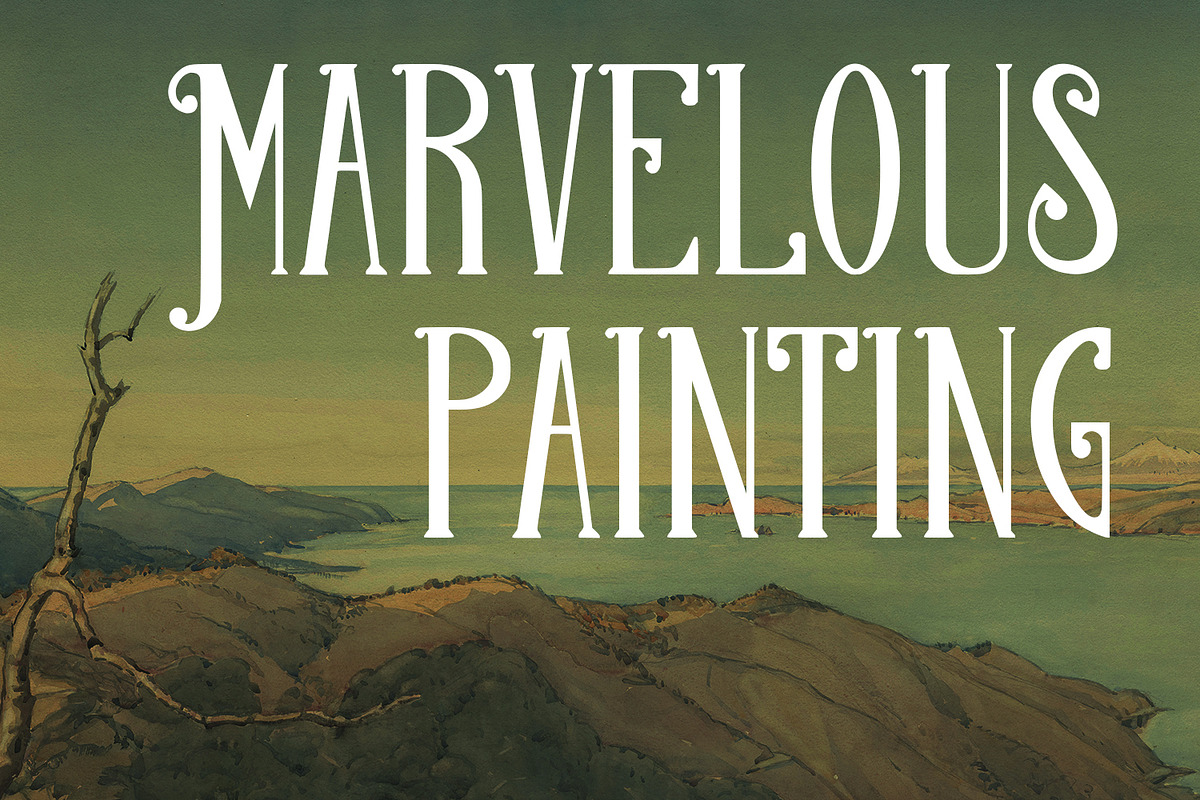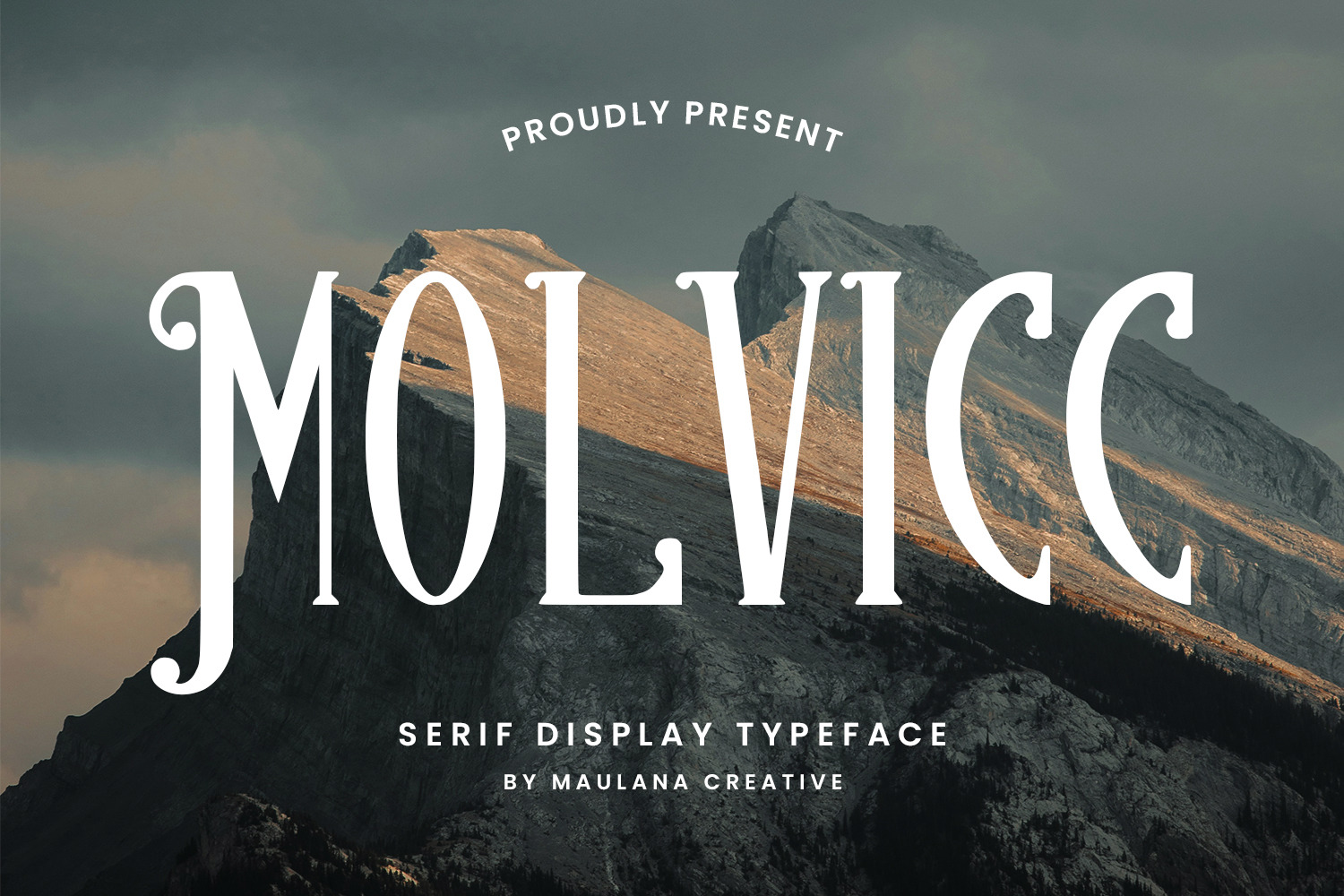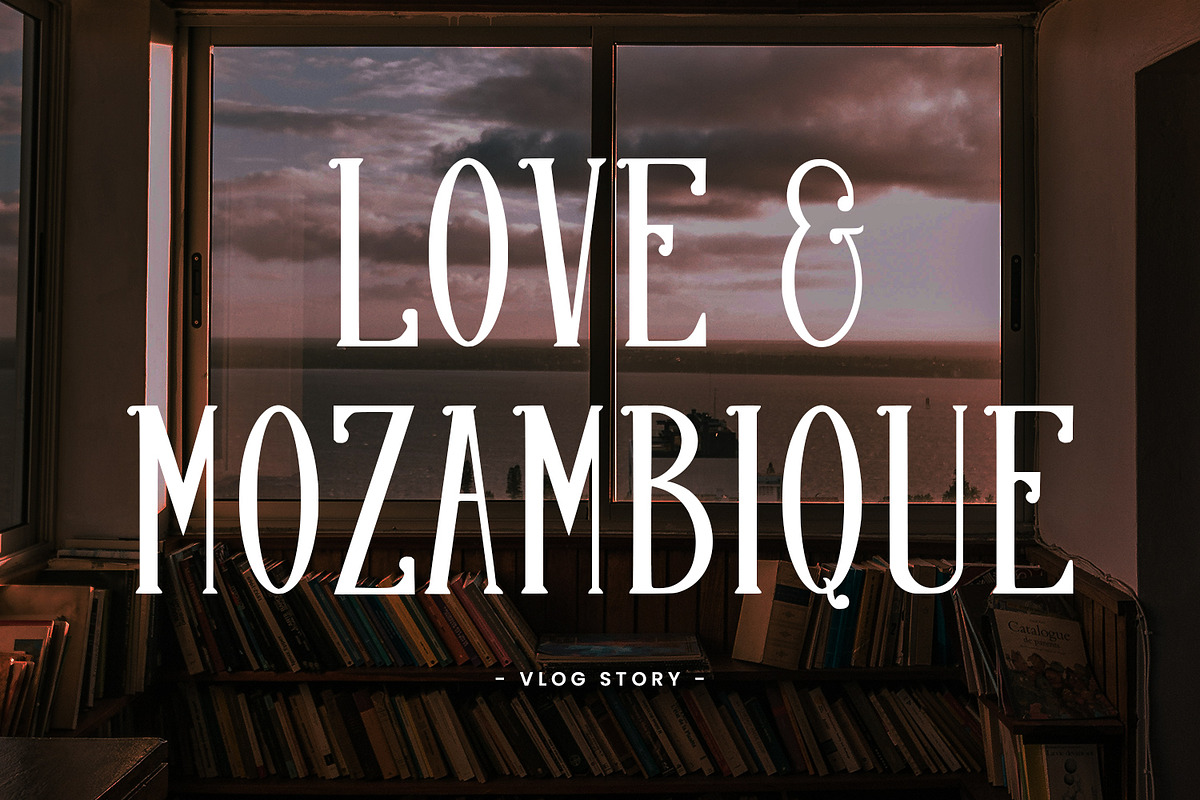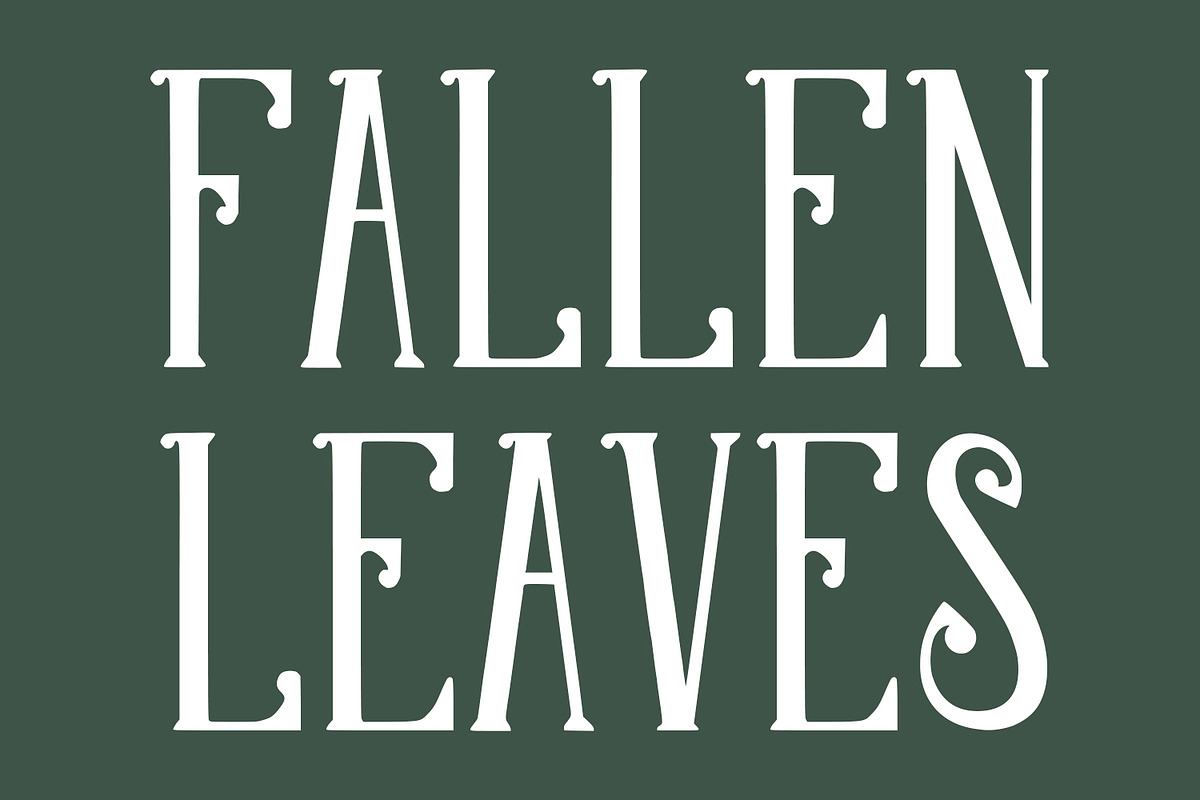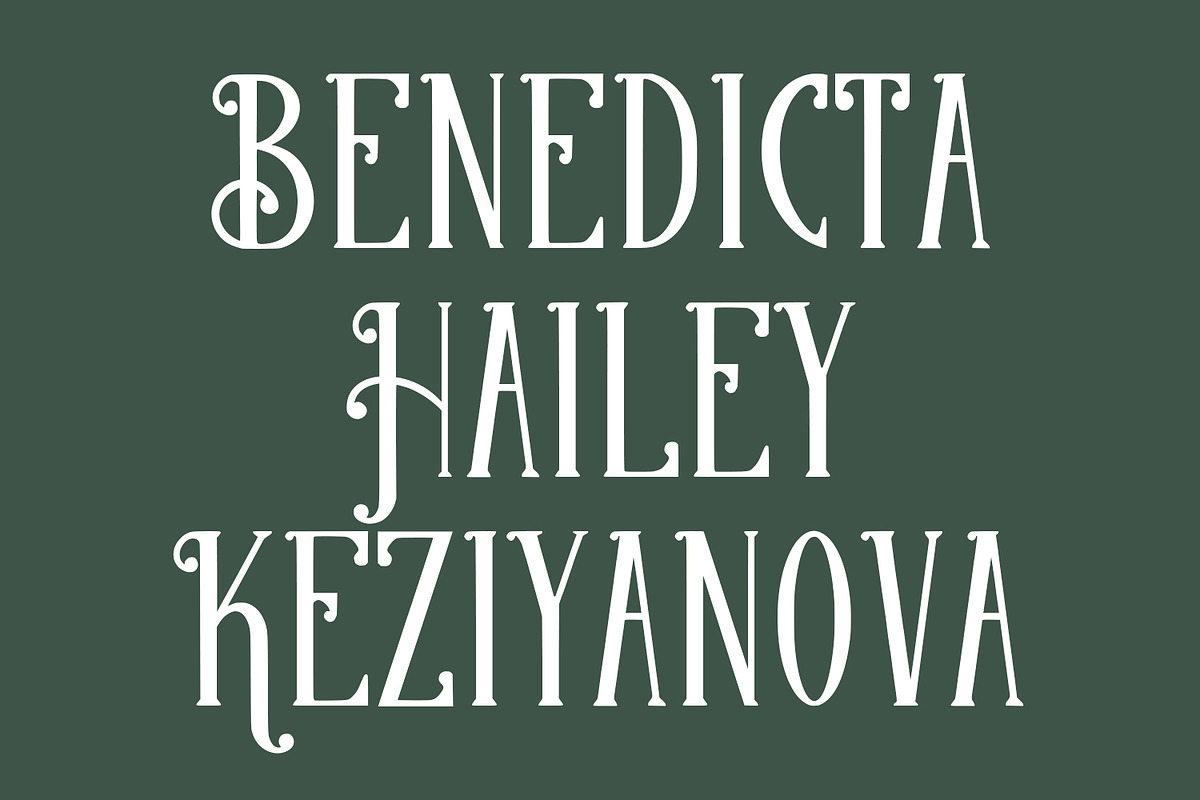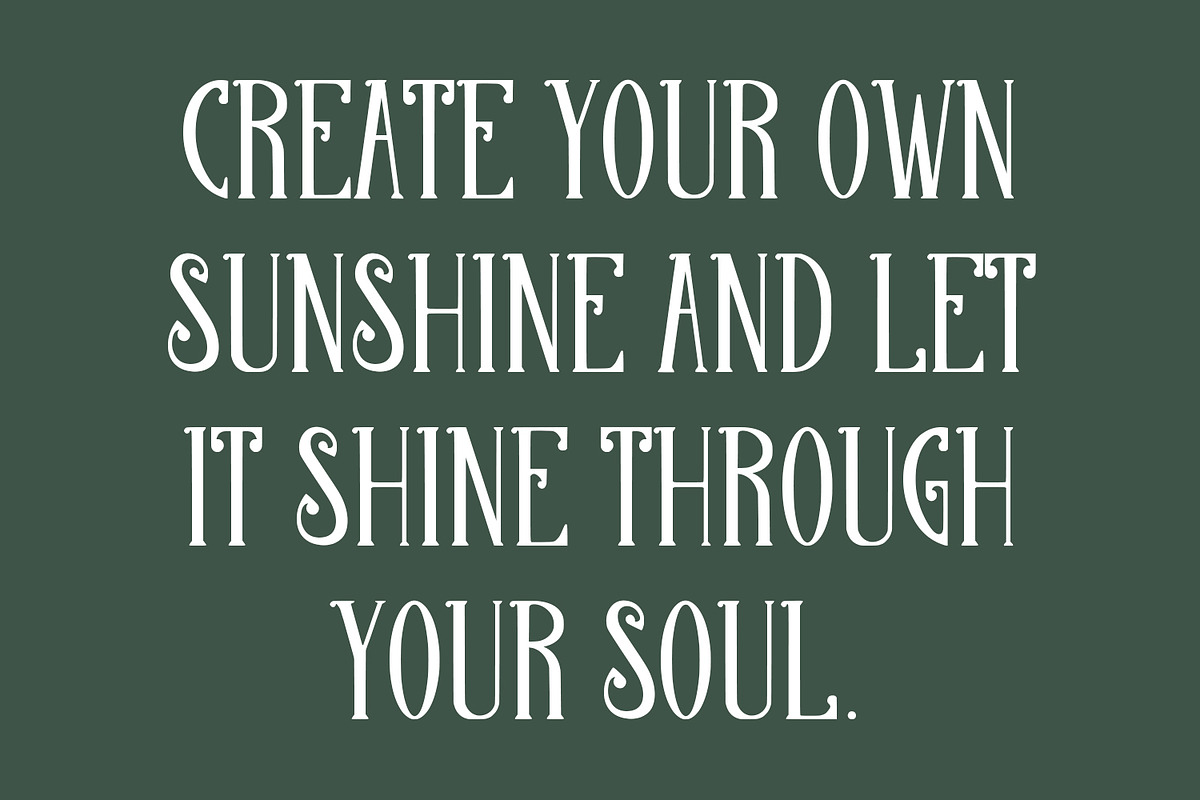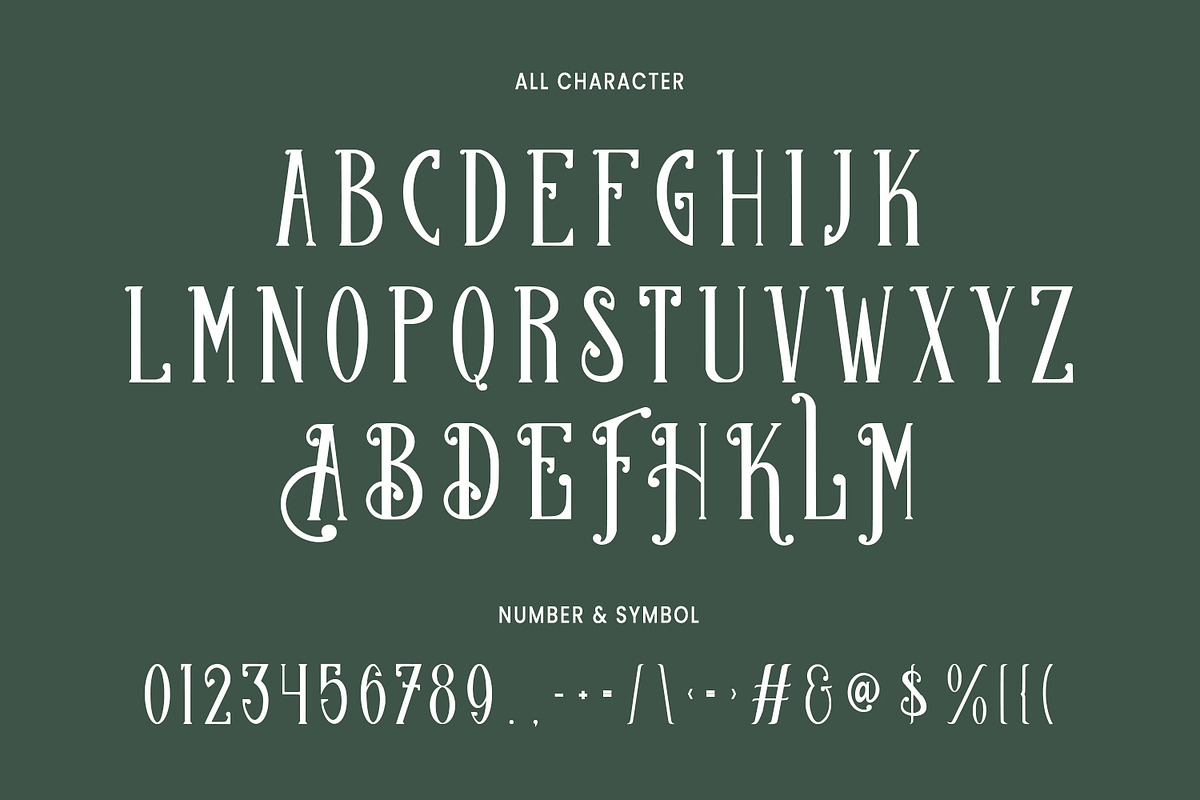
Molvicc Decorative Display Typeface
Molvicc is a serif display font. With bold tall and sharp stroke, fun character with a bit of ligatures and alternates. To give you an extra creative work. Molvicc font support multilingual more than 100+ language. This font is good for logo design, Social media, Movie Titles, Books Titles, a short text even a long text letter and good for your secondary text font with sans or serif. Make a stunning work with Molvicc font.